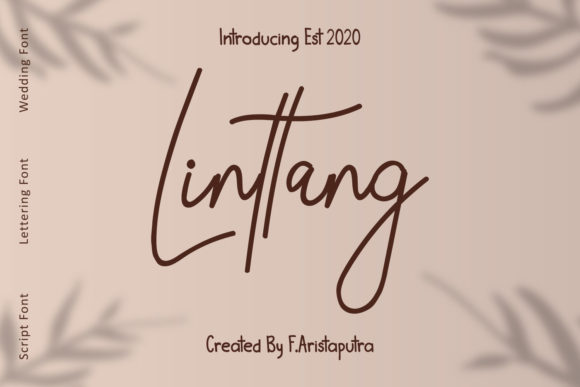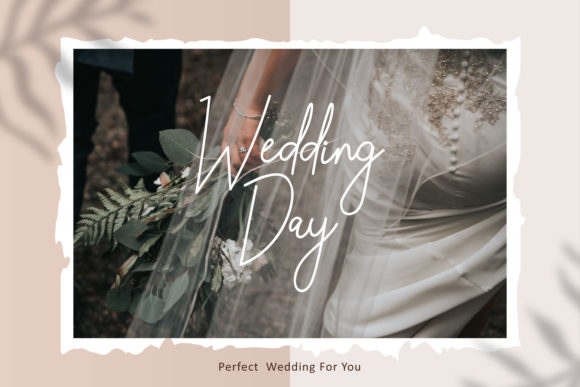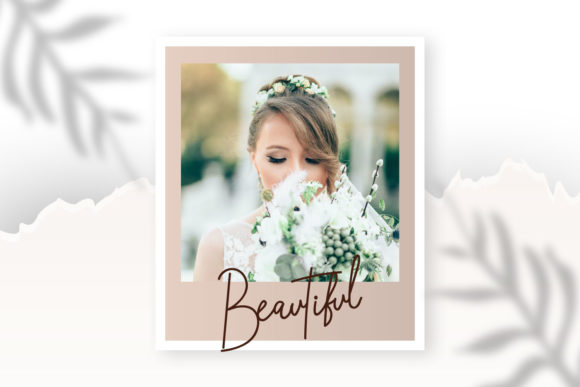
About Linttang Font
Linttang is an elegant handwritten font. Linttang features smooth lines, beautiful glyphs, and a stunning alternative. It maintains a classy calligraphic influence while feeling contemporary and fresh. Fall in love with this font and take your projects to the highest level!